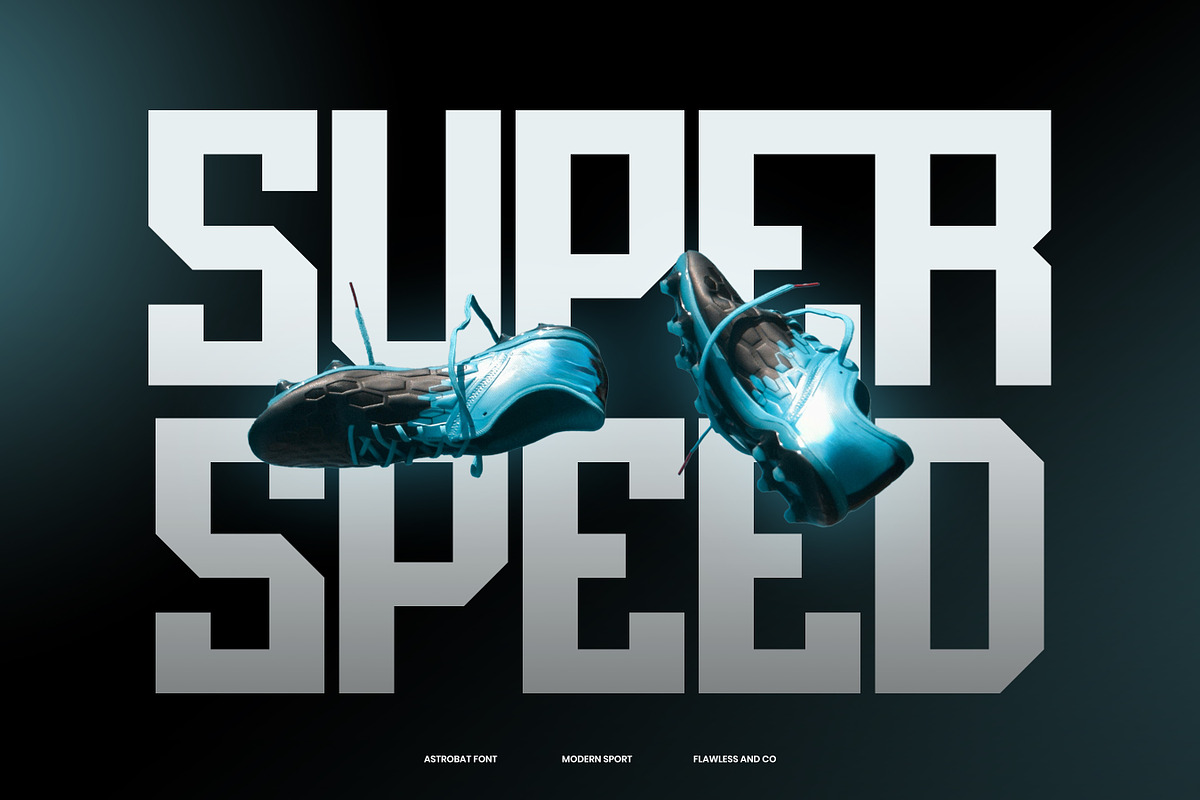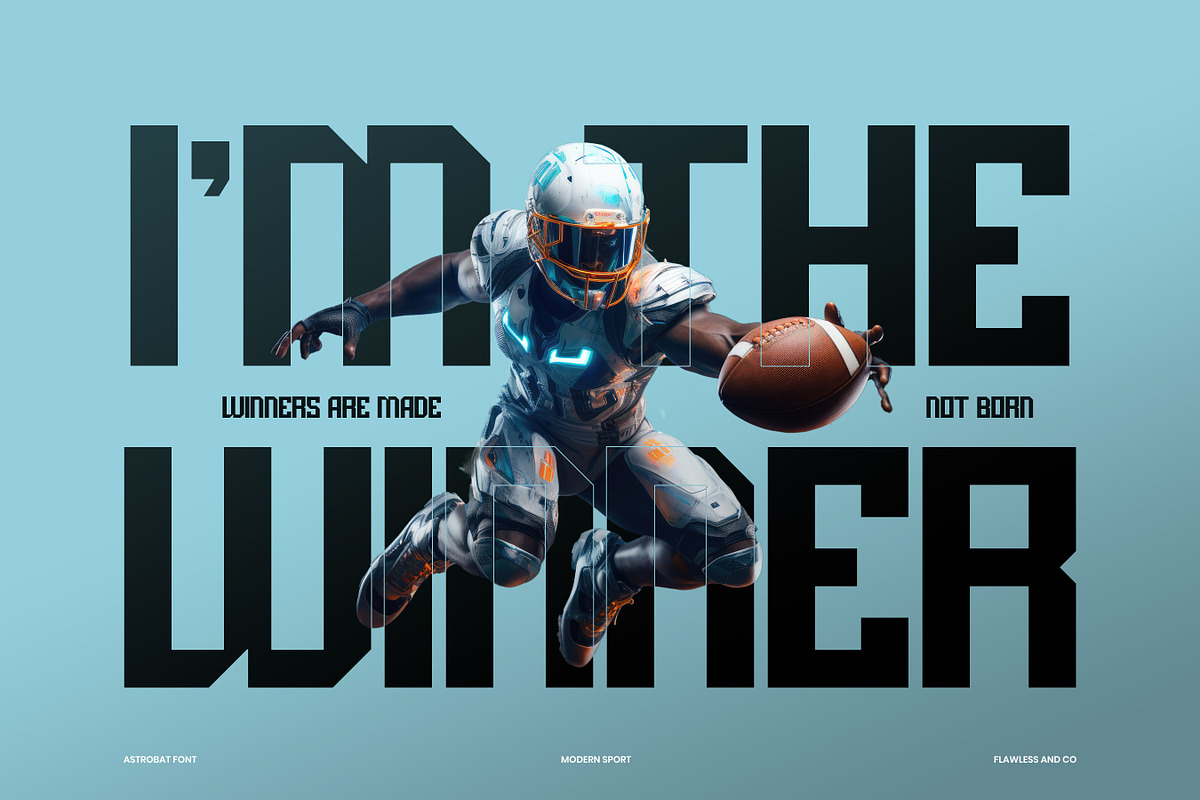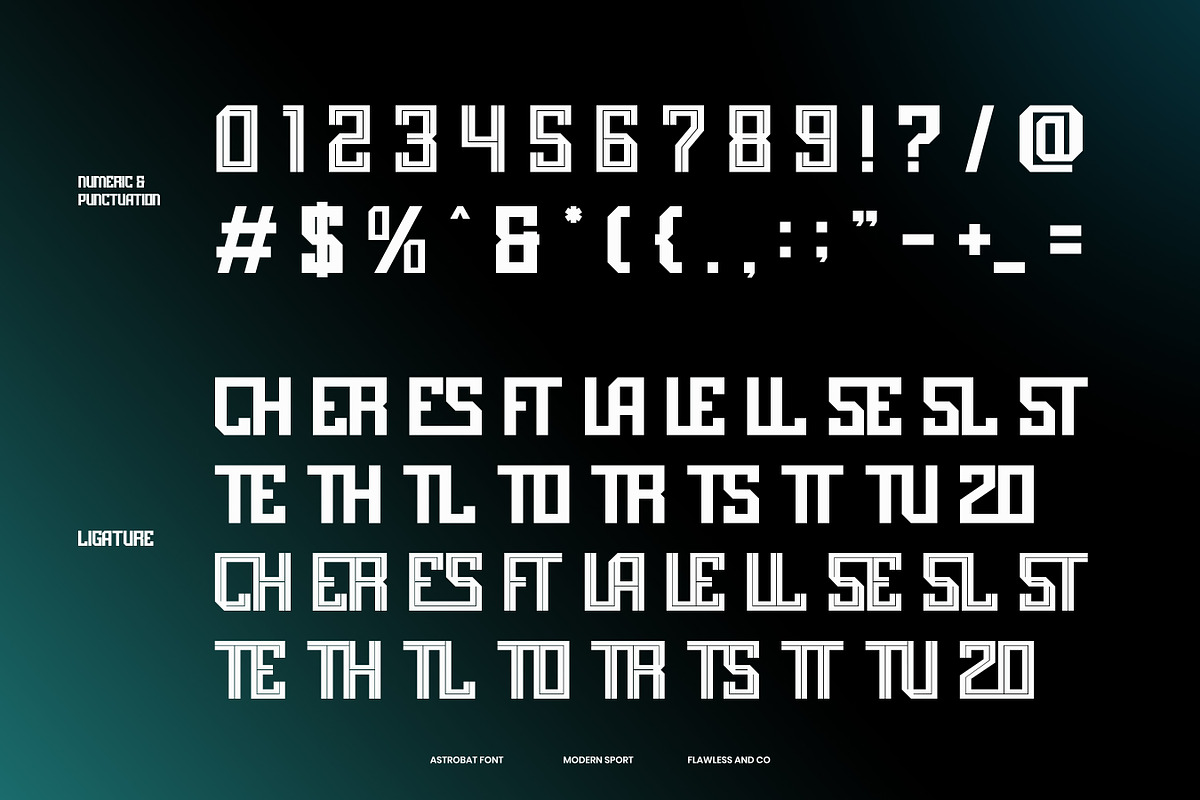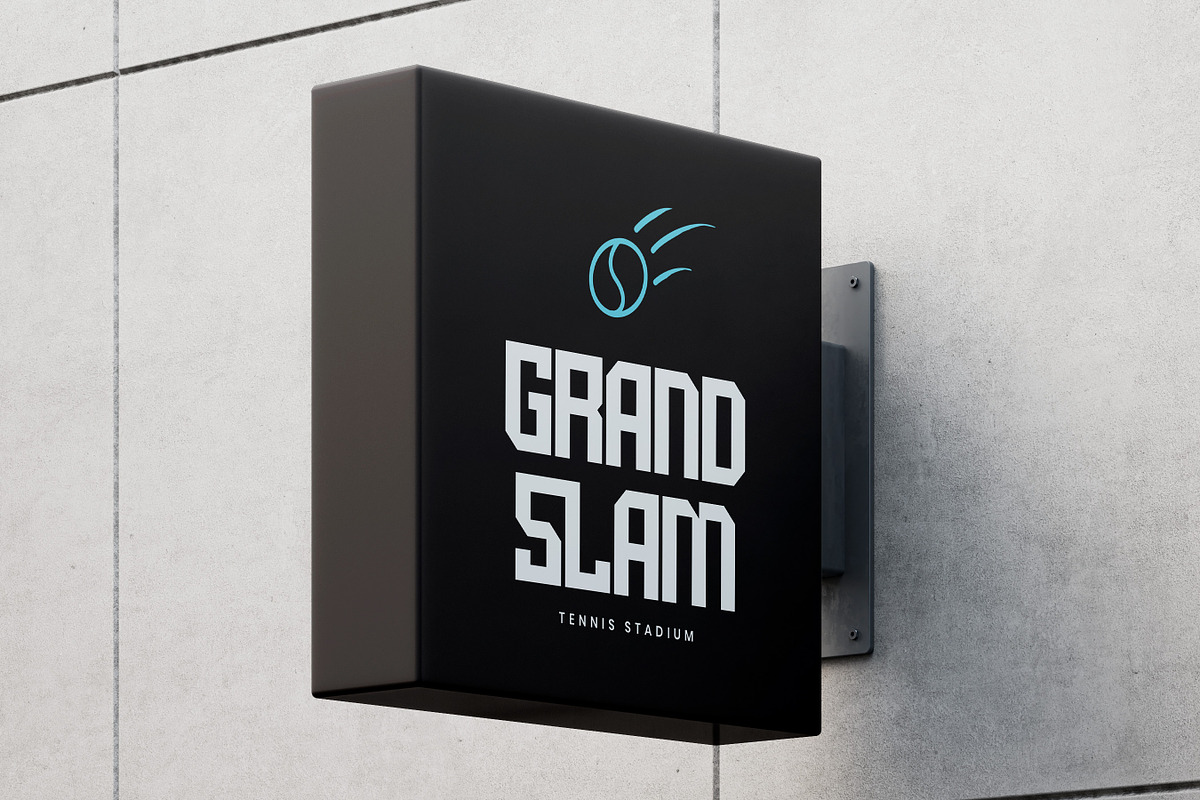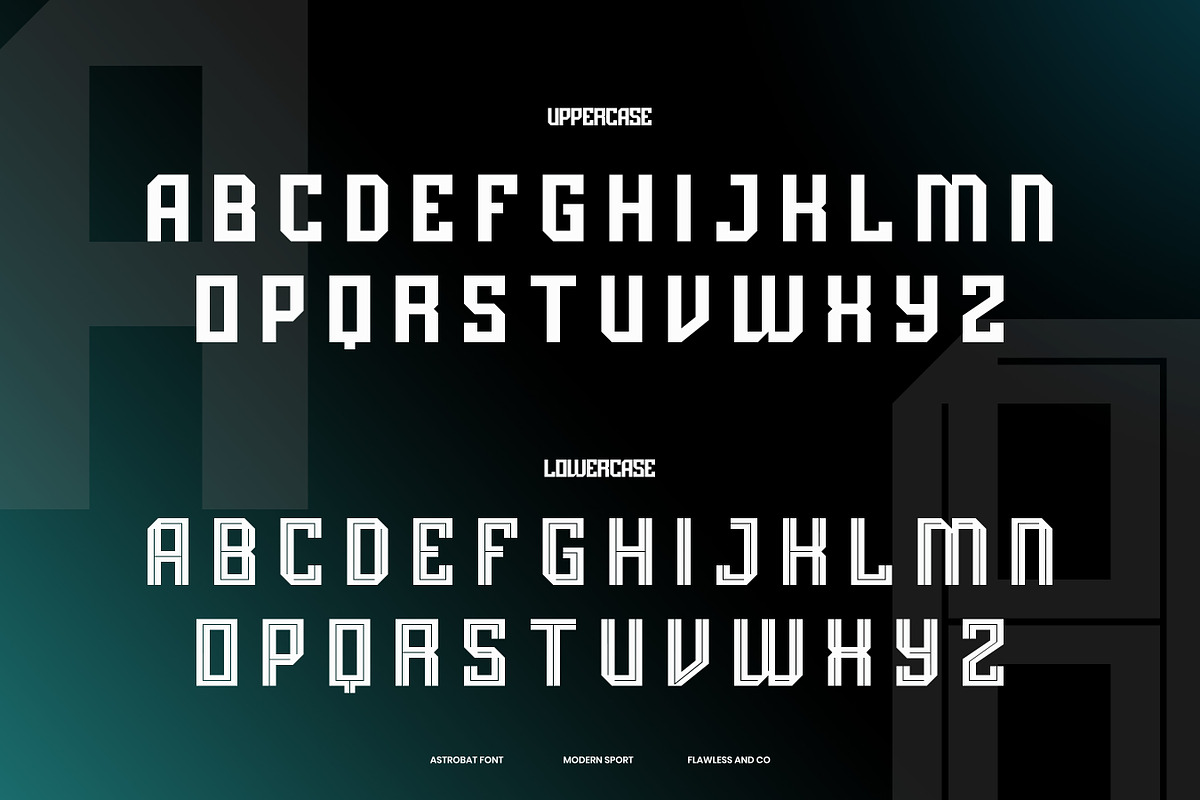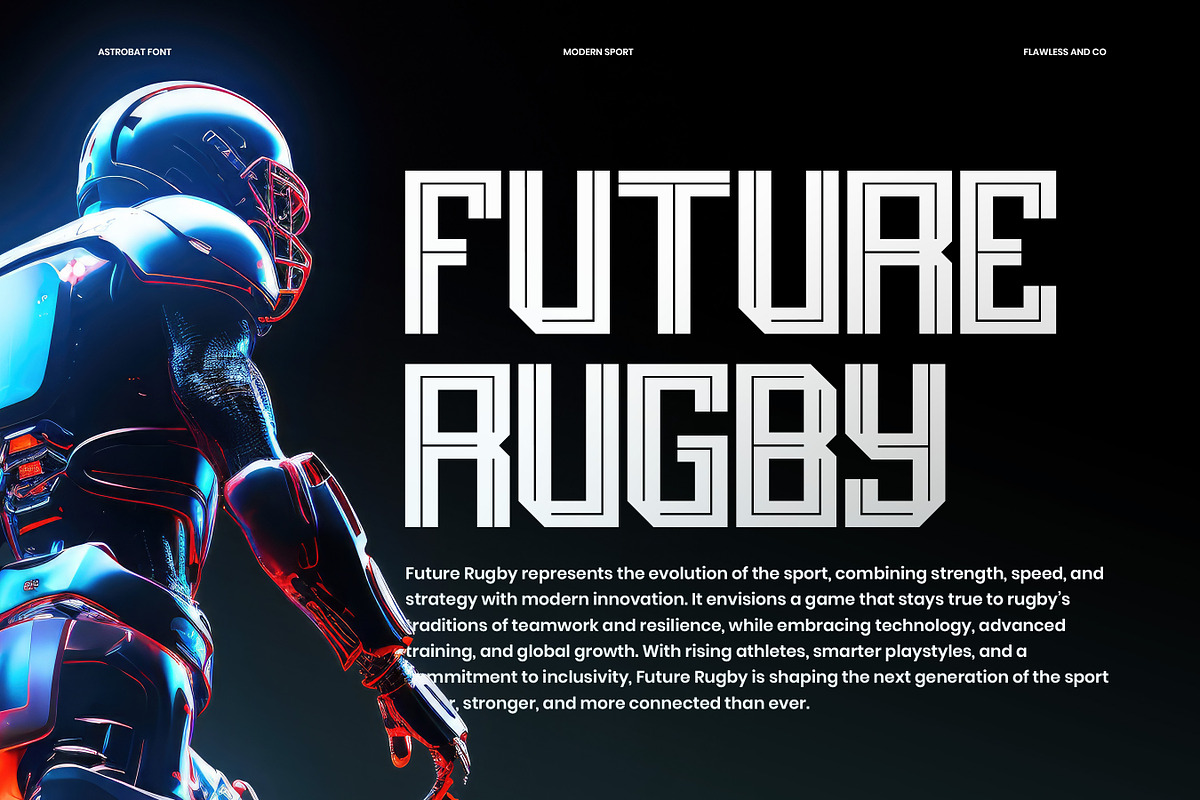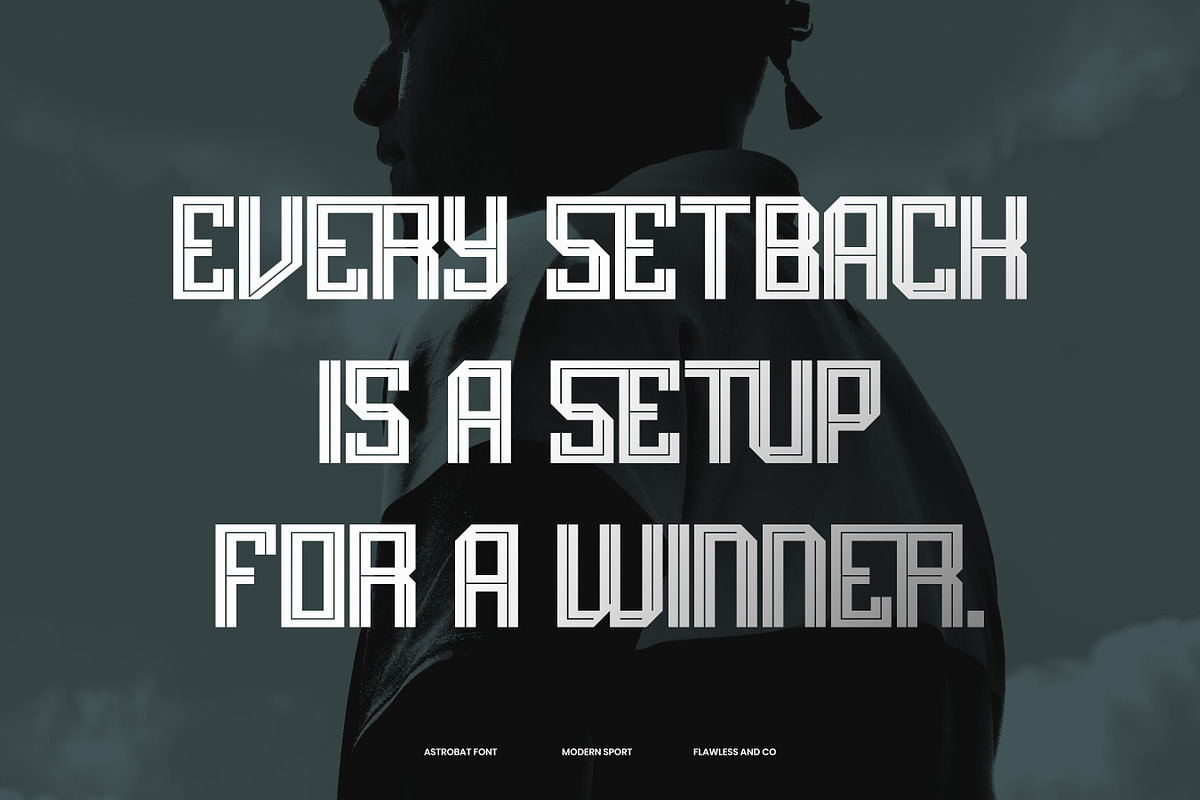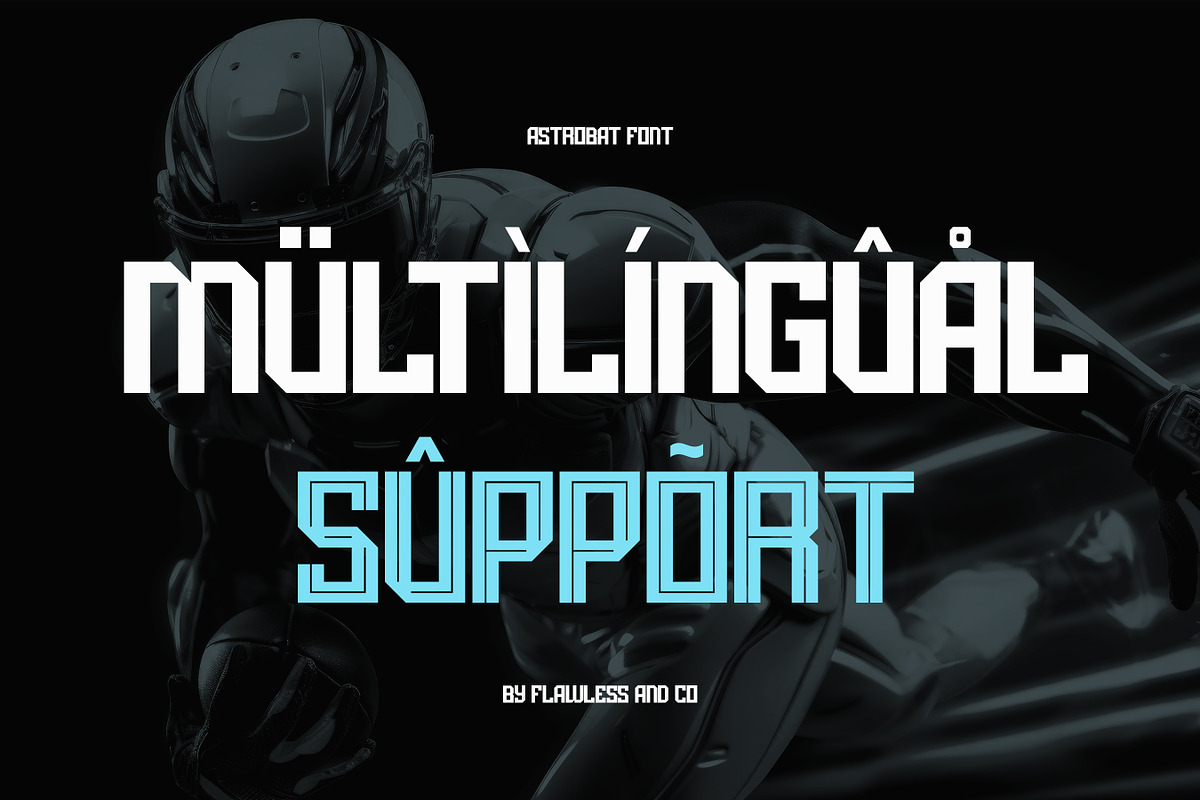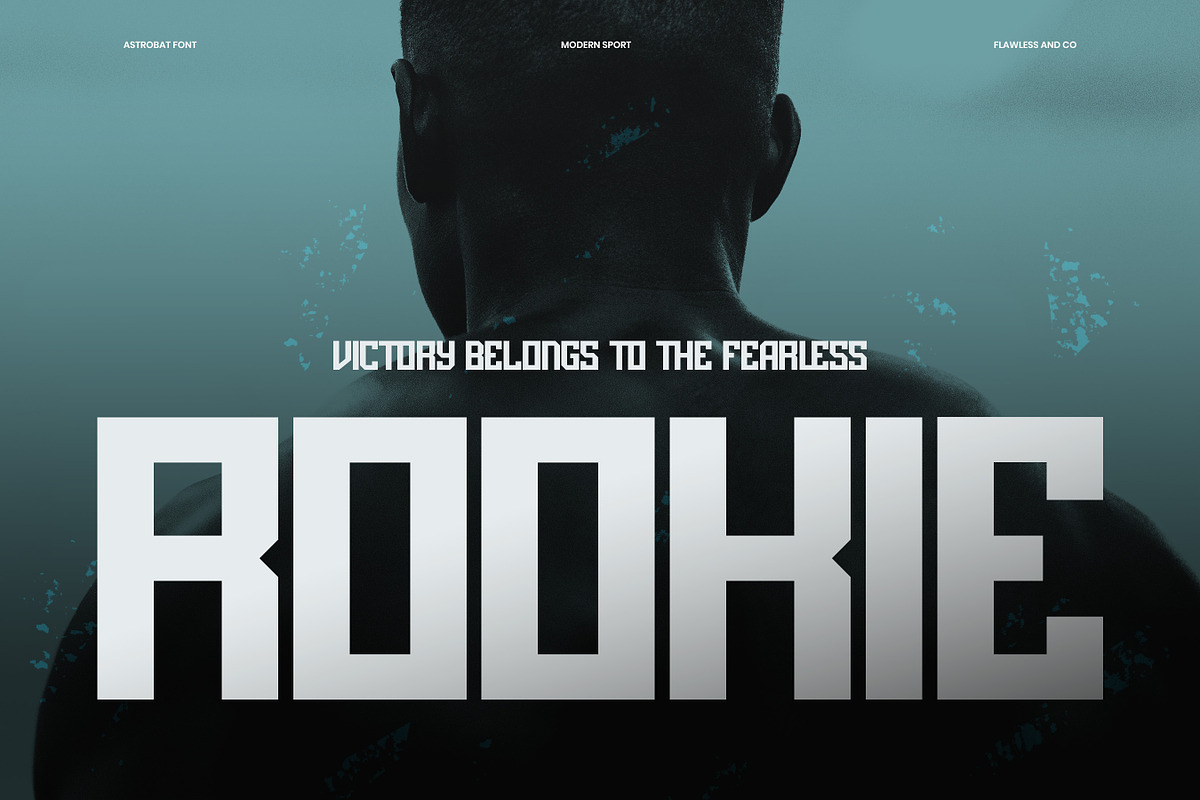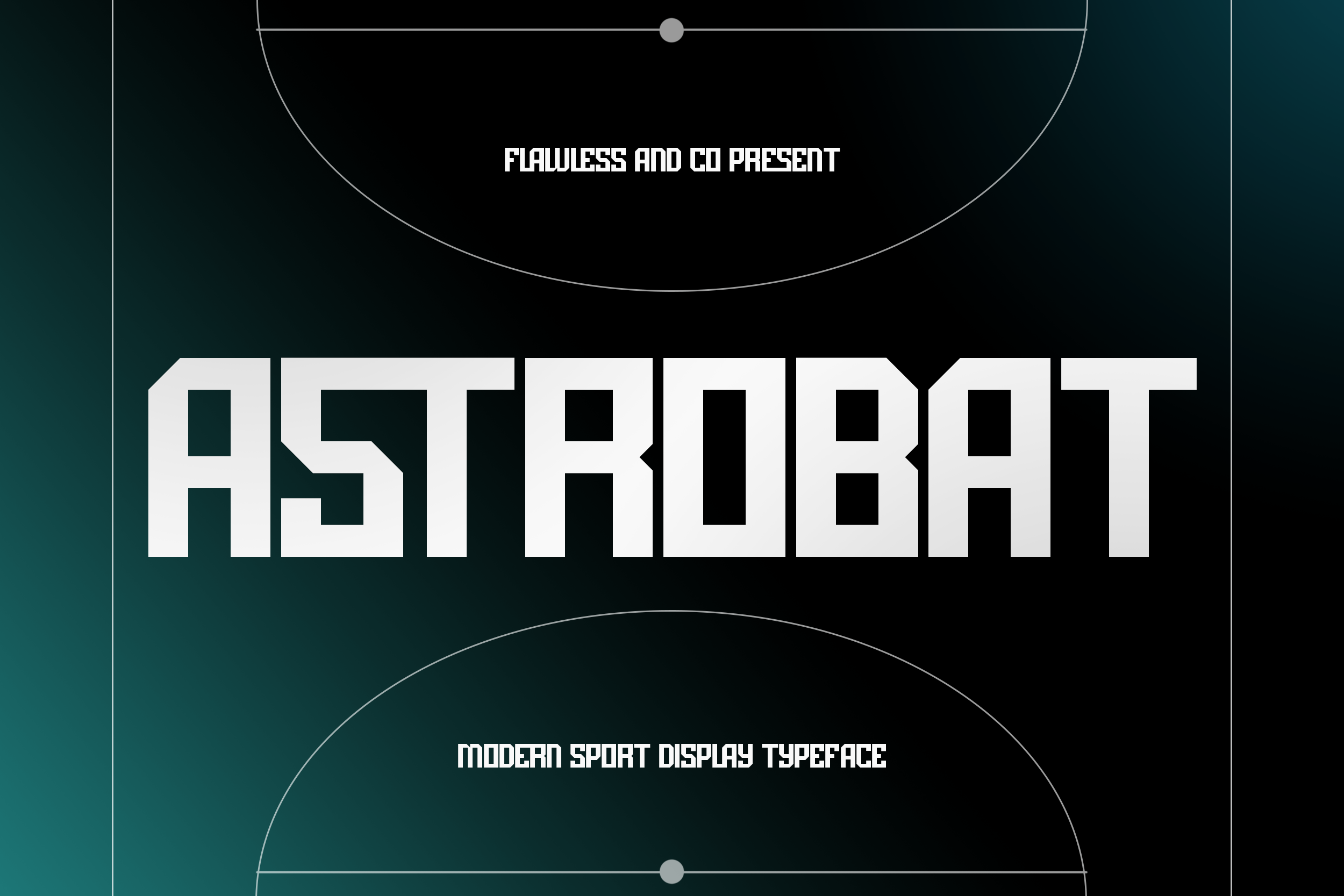
Astrobat - Sport Display Font
Astrobat - Modern Srport Display Font Astrobat is a bold and modern sport display typeface designed to capture the intensity, energy, and futuristic edge of athletic competition. With its sharp geometric cuts, powerful letterforms, and commanding presence, Astrobat delivers a sense of speed and strength that’s perfect for high-impact visuals. Whether used for team branding, esports titles, posters, or dynamic headlines, Astrobat brings a cutting-edge style that pushes sports typography into a new era. Its versatility makes it a standout choice for designers who want to merge modern innovation with bold athletic aesthetics. Features: - Uppercase & Lowercase - Alternates & Ligatures - Numerals & Punctuation - Multilingual Support Who Should Use Astrobat? Astrobat is made for designers, creatives, and brands who want their visuals to radiate power, speed, and modern sport aesthetics. This font is perfect for: - Sports teams & athletic clubs building bold identities - Esports and gaming creators seeking futuristic impact - Branding projects that demand strength and innovation - Poster & merchandise designers who need eye-catching type - Content creators crafting energetic and competitive visuals A Must-Have Font for "Brand and Logo" Creators and Designers Astrobat is more than just a sport display typeface—it’s a powerful tool for shaping strong and futuristic brand identities. Its bold geometric structure and modern energy make it a must-have for designers and creators who want to craft logos, branding, and visuals that stand out with confidence and athletic spirit. Why Choose Astrobat for "Brand and Logo" Projects? Astrobat brings a bold, futuristic edge to your branding, making it the perfect choice for projects that demand strength, precision, and modern appeal. With its sharp display forms and athletic-inspired design, this font enhances logos, sports identities, and dynamic visuals with maximum impact. Whether you’re building a professional brand or a powerful sports aesthetic, Astrobat delivers the energy and clarity your designs need to shine. Suitable For: - Sports branding and athletic team identities - Logos and merchandise for modern sports clubs - Gaming titles, esports logos, and dynamic displays - Posters, covers, and event promotions with high impact - Bold advertising, social media graphics, and marketing campaigns - Futuristic design projects seeking a strong and energetic vibe If you need help, just write me! Thanks so much for checking out my shop